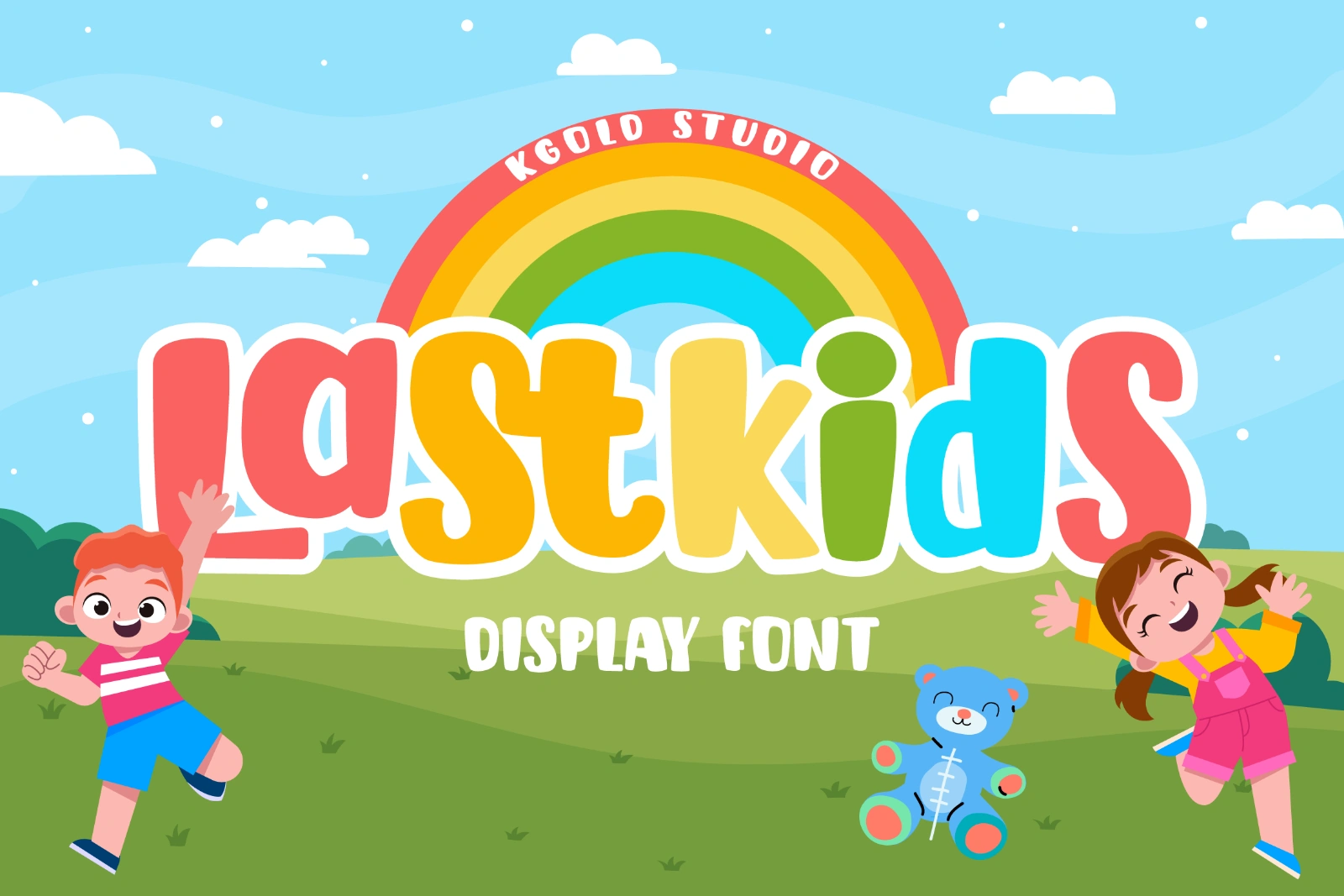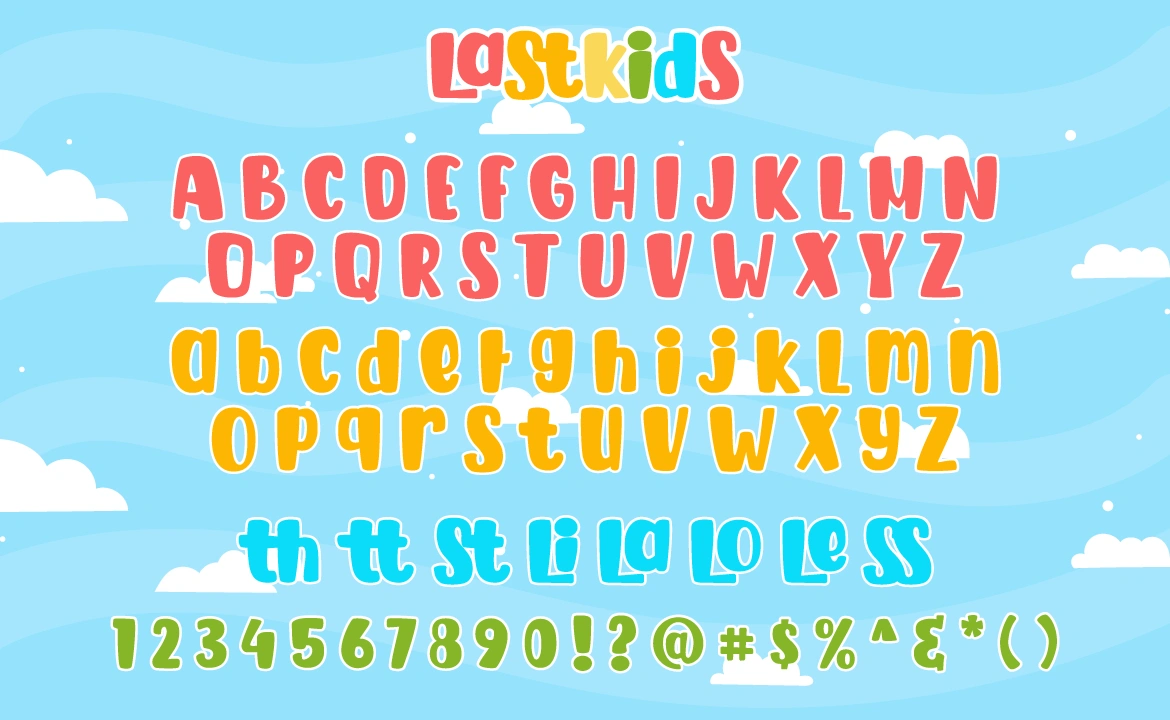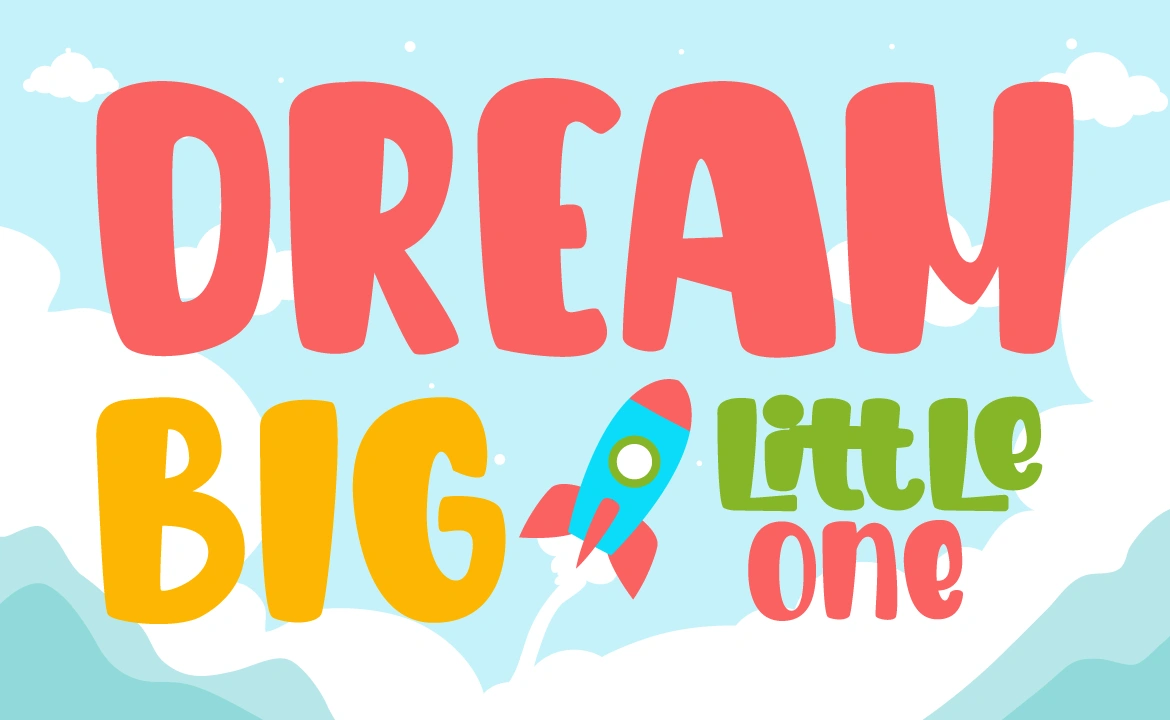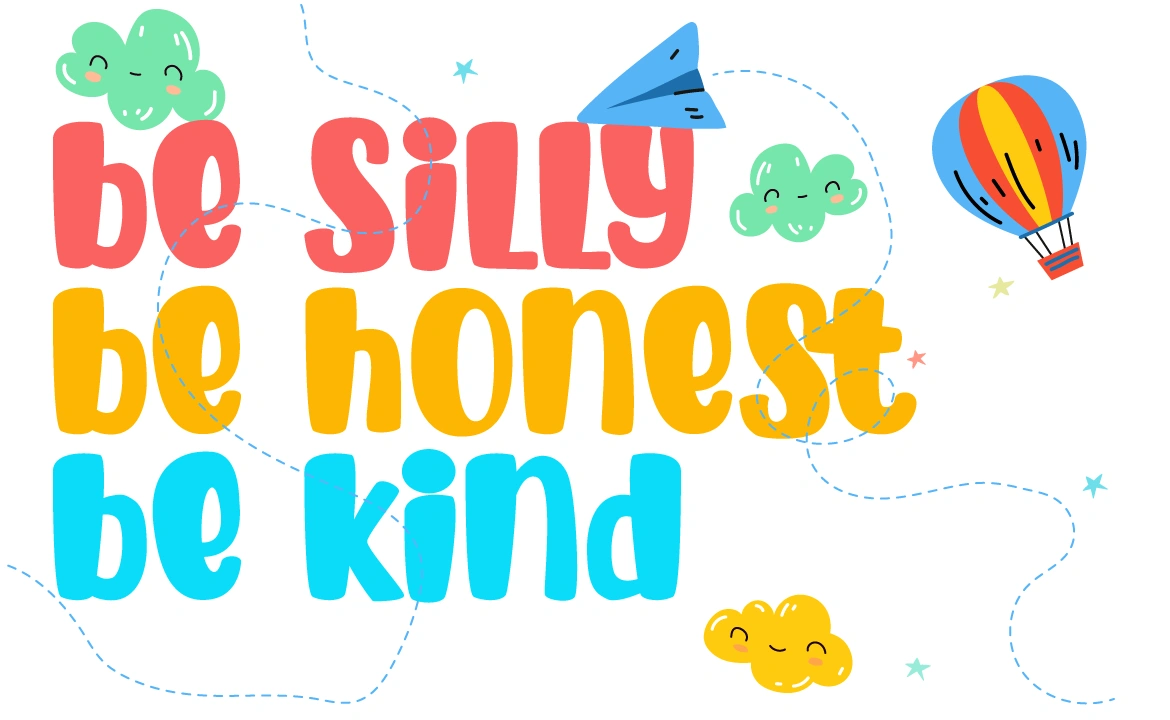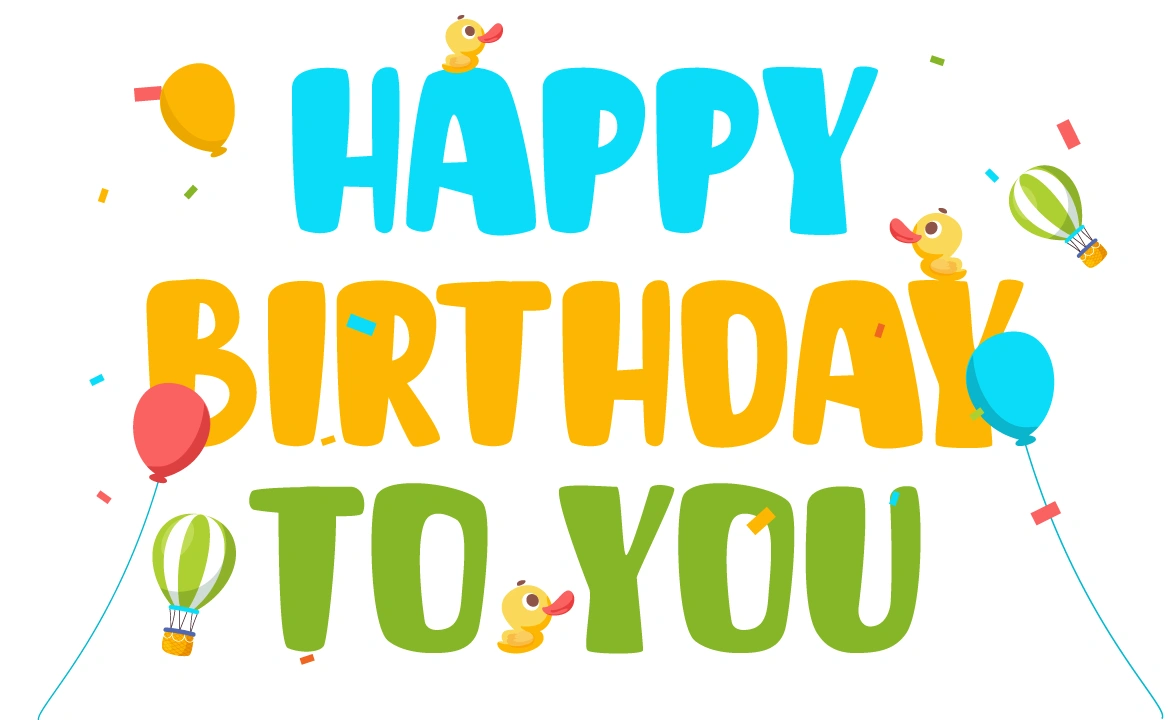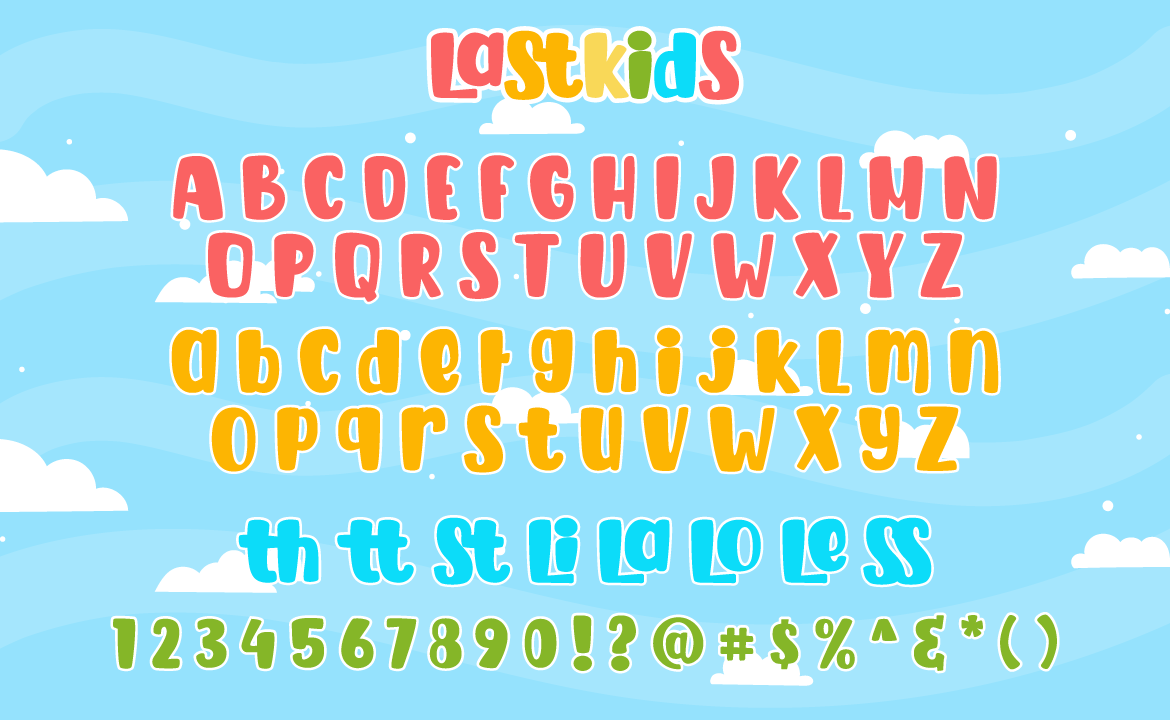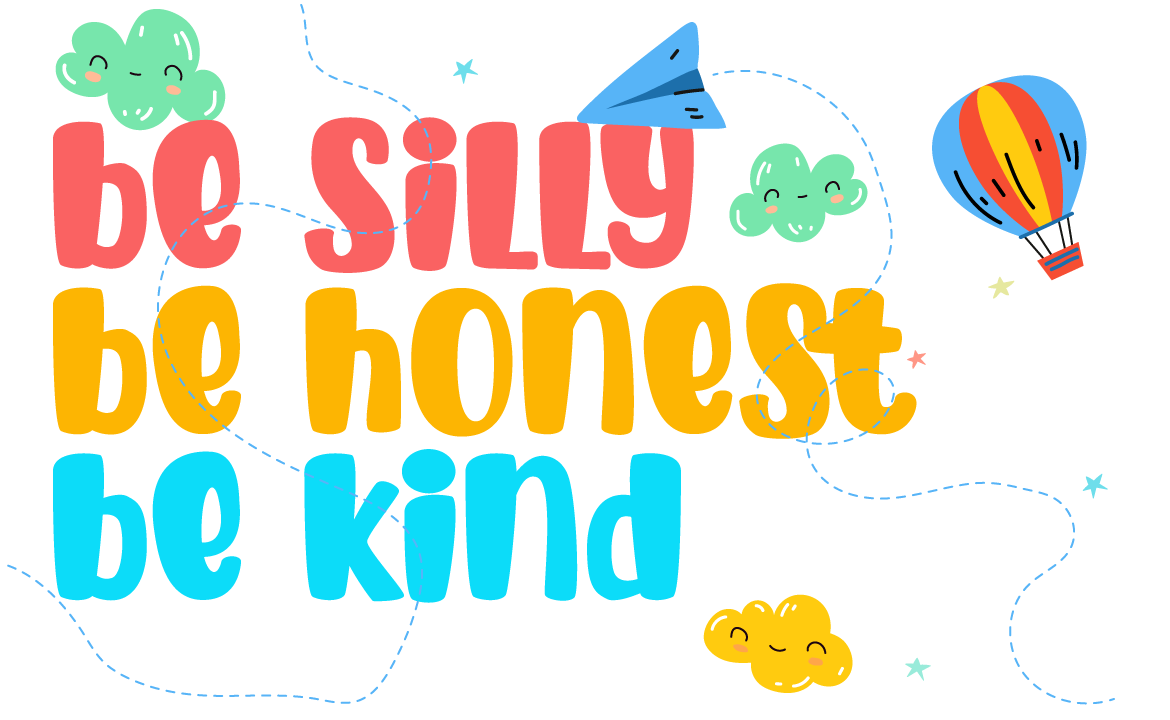
Lastkids is a fun, thick lettered, and cool display font. Whether you’re using it for crafts, digital design, presentations, or making greeting cards, this font has the potential to become your favorite go-to font, no matter the occasion!